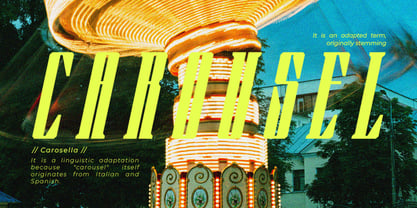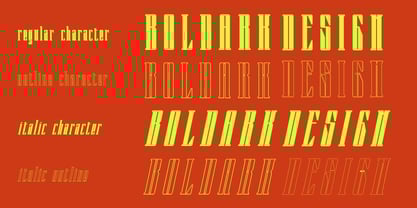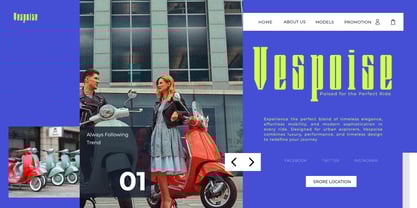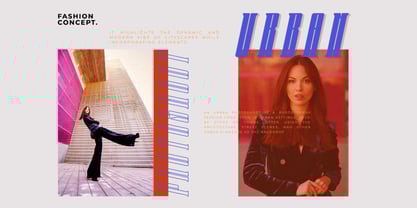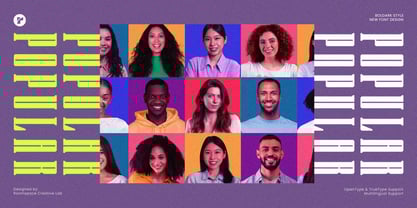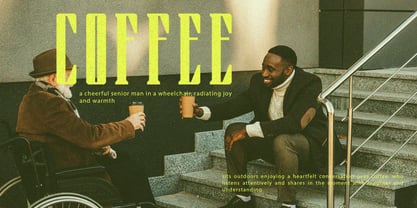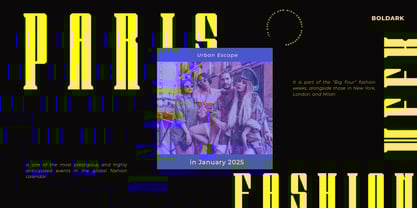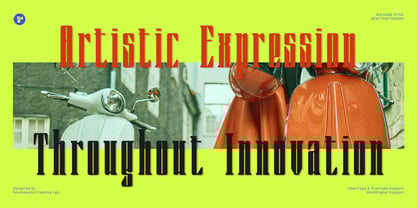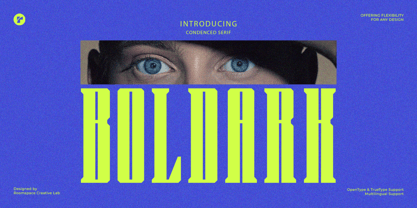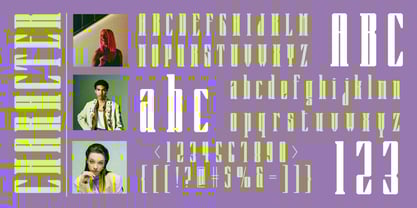
Boldark
by Jafar07
The Boldark Font Family was designed by Bakhrudin Ja'far and published by Jafar07. Boldark contains 4 styles and family package options. More about this family
Boldark Font is a meticulously crafted condensed serif typeface designed to capture attention and evoke a sense of sophistication. With its bold, confident lines and narrow proportions, Boldark is the epitome of modern typography fused with a touch of timeless elegance. This font is perfect for designers and businesses aiming to create impactful visual statements, whether for digital or print media. Boldark’s striking design balances readability and creativity, making it an excellent choice for high-impact headlines, editorial layouts, luxury branding, and advertising campaigns. Its condensed style allows for efficient use of space while retaining a bold presence, making it ideal for large-scale projects such as posters, billboards, and packaging.
A little from my personal design & background: My name is Bakhrudin Ja'far, I live in Malang, Indonesia. I am currently completing my degree in visual communication design and I have worked as a lettering artist and logo designer for many years. I finally started my studio called roocspace creative lab (jafar07) Studio a few months ago and with my team made my letters into typography.